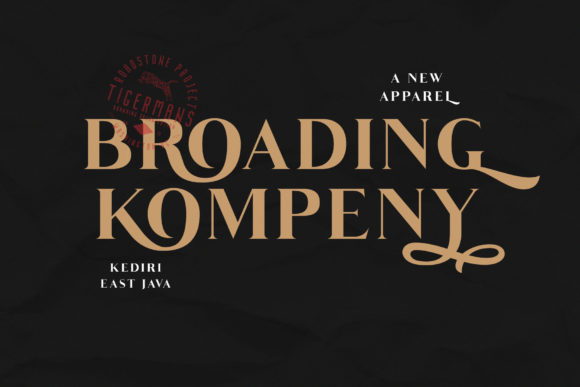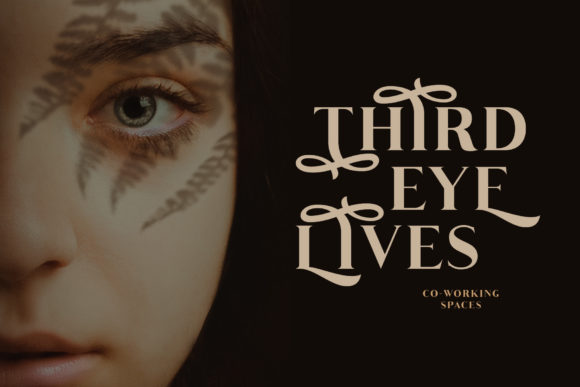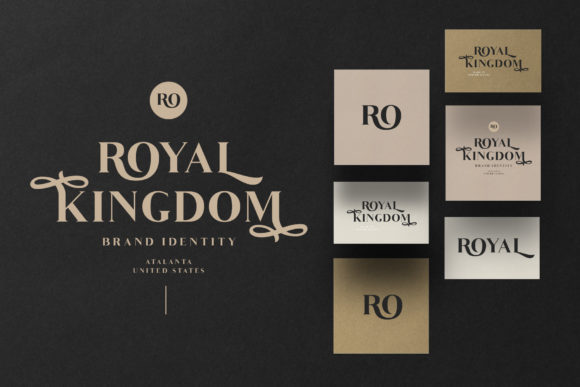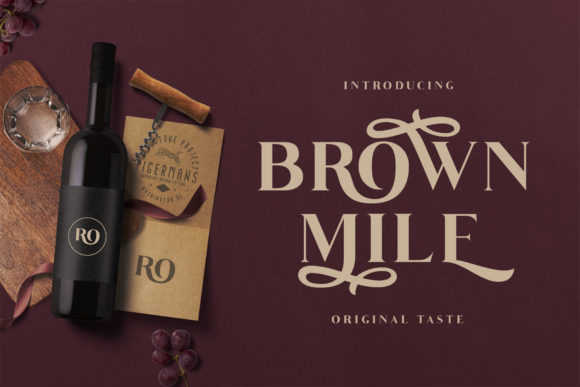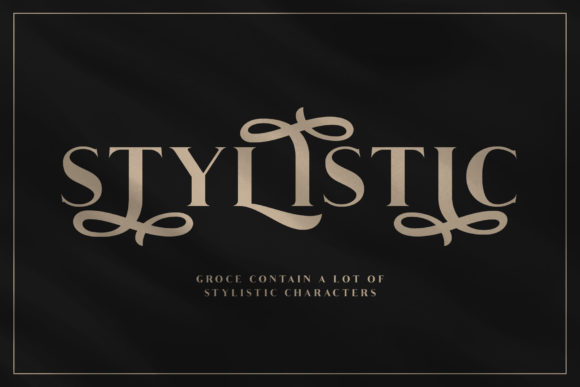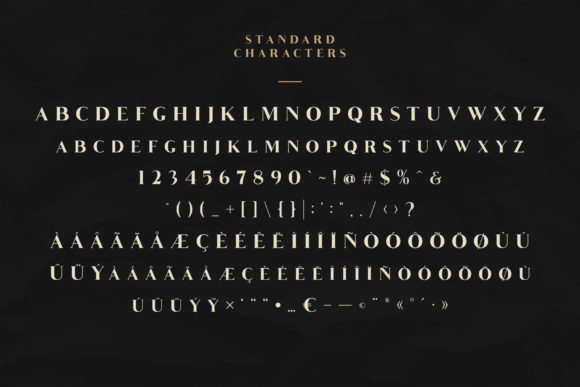
Introduction to Groce Font
As a designer, you’ve probably found yourself stuck on a project, staring at a blank canvas, wondering how to bring your creative vision to life. For many of us, that moment of inspiration comes when we stumble upon the perfect font. And that’s exactly what happened when I discovered the Groce Font.
With its elegant, high-quality design, the Groce Font is a valuable addition to any designer’s toolkit. Whether you’re working on a creative project, designing packaging, or crafting wedding stationery, this versatile font offers a wide range of possibilities. Its sophisticated look makes it perfect for adding a touch of elegance to any design, and with its transparent background, it’s easy to layer and customize to suit your needs.
As a free download, the Groce Font is an essential design resource for any creative project. In this article, we’ll explore the features and benefits of this stylish serif font, and show you how to get the most out of it.
Key Features of Groce Font
- High-quality design resource with a unique, creative style perfect for various projects.
- Features a transparent background, allowing for easy customization and integration into any design.
- Available in various font sizes, with a recommended minimum size of 12pt for optimal readability.
- Designed at 300 DPI resolution, making it suitable for both web and print designs.
- Unique characteristics include elegant lines, subtle curves, and a touch of sophistication, making it perfect for high-end projects.
Honest Review: Groce Font
As a designer, I’m always on the lookout for high-quality fonts to elevate my creative projects. Recently, I stumbled upon the Groce Font, and I’m excited to share my thoughts on this design resource.
- Unique and modern design aesthetic that sets it apart from other fonts.
- Comes with a transparent background, making it easy to integrate into various design projects.
- May not be suitable for very formal or traditional designs due to its modern style.
- Limited font sizes and styles, which may limit its versatility.
Overall, I think the Groce Font is a solid addition to any designer’s toolkit. While it may not be perfect, its unique design and transparent background make it a great choice for creative projects. With a little creativity, I’m sure designers can push the limits of this font and create some amazing designs.
Tips for Getting the Most Out of Groce Font
Use Groce Font with a transparent background to create visually appealing designs. Experiment with different font sizes and colors to add emphasis and visual interest to your designs. Consider combining Groce Font with other design elements, such as images and graphics, to create a cohesive and engaging visual identity.
Groce Font is a versatile font that can be used in a variety of creative projects, including logos, graphics, presentations, and social media posts. It’s perfect for designers, marketers, and anyone looking to create high-quality visual content.